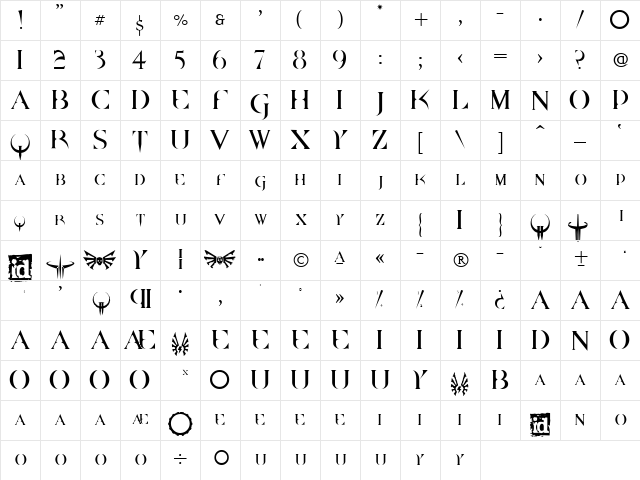
DpQuake Regular Free Font
DpQuake Regular
Design Context for DpQuake
DpQuake is a composed and adaptable typeface that performs quietly and consistently across a wide range of design contexts.